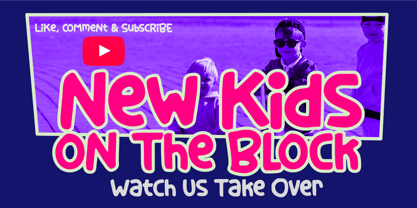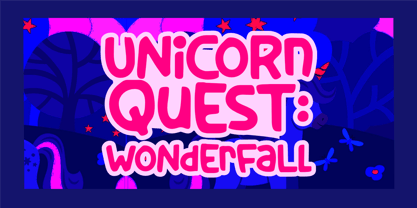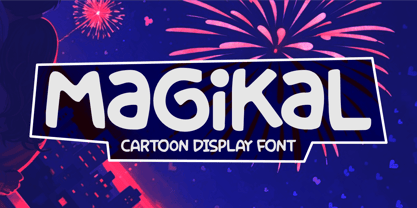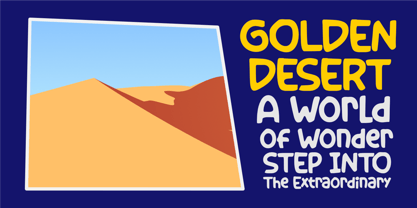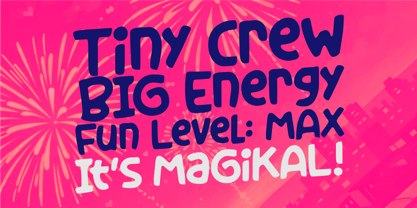
Magikal
The Magikal Font Family was designed by Aldy Sidik and published by Epiclinez. Magikal contains 1 styles. More about this family
Magikal is a fun and playful display font full of personality and charm. With its bouncy shapes and quirky curves, it feels lively and a little bit magical—like something from a storybook. This font works great for kids' designs, cartoon titles, game logos, toy packaging, YouTube thumbnails, and anything that needs a bright, happy vibe. It’s perfect when you want your text to feel fun, expressive, and easy to notice. Each letter has its own unique touch, making your words feel more alive and full of energy. Whether for headlines or logos, Magikal helps turn simple text into something more exciting. Add a little magic to your work with Magikal.